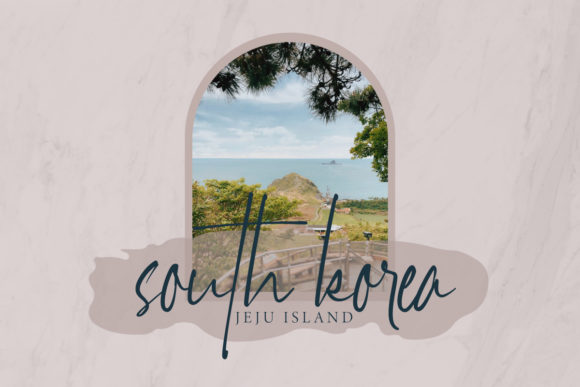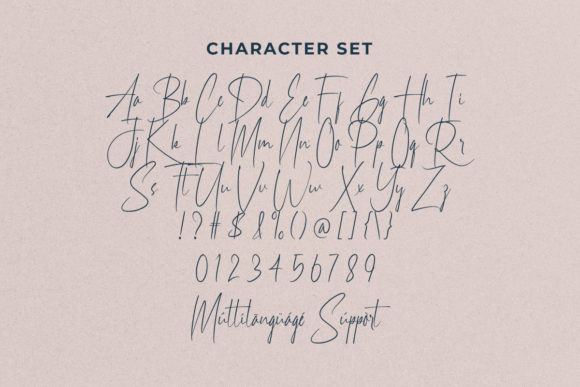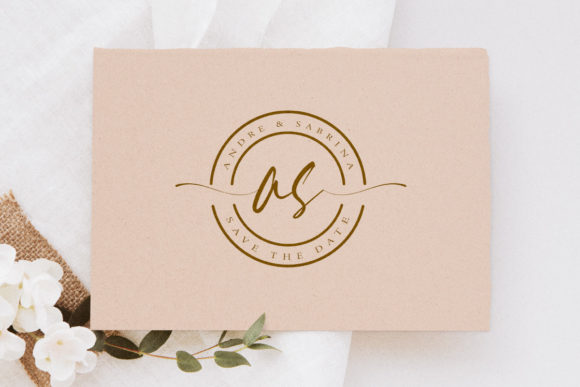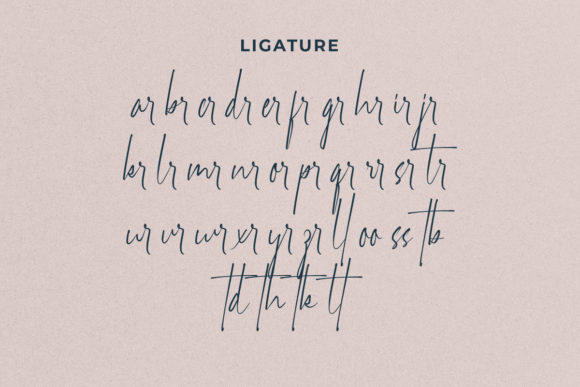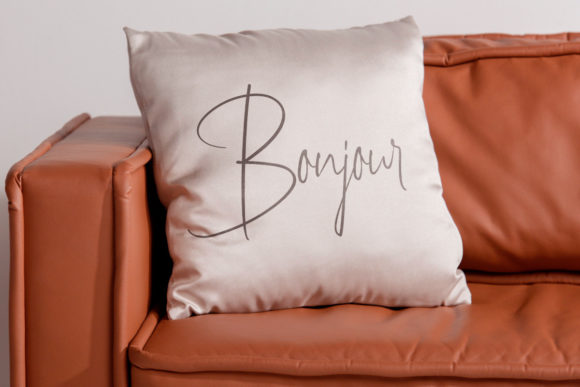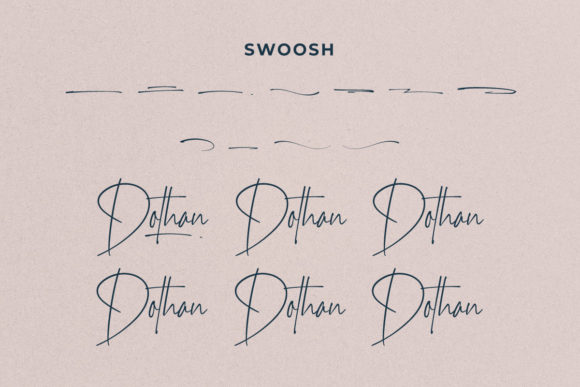
Dothan Font: A Sweet Script Font for Your Creative Projects
Are you a designer or crafter looking for a unique and elegant font to add a touch of personality to your projects? Look no further than the Dothan font, a sweet script font with a relaxed theme that’s perfect for a variety of creative endeavors. In this article, we’ll take a closer look at the Dothan font, its features, and how you can use it to elevate your designs.
What is Dothan Font?
Dothan is a beautiful script font that boasts a relaxed and casual vibe, making it ideal for projects that require a touch of elegance and sophistication. The font features thin characters that give it a light and airy feel, perfect for creating a sense of whimsy and playfulness in your designs.
One of the standout features of the Dothan font is its PUA (Private Use Area) encoding. This means that you can access all of the glyphs and swashes with ease, giving you a wide range of creative possibilities. With PUA encoding, you can easily insert special characters, ligatures, and other unique elements into your text, allowing you to customize your designs and make them truly one-of-a-kind.
Features of Dothan Font
- Relaxed theme: Dothan font has a calm and serene feel, making it perfect for projects that require a soothing and peaceful atmosphere.
- Thin characters: The font’s thin characters give it a light and airy feel, adding a touch of elegance and sophistication to your designs.
- PUA encoded: With PUA encoding, you can access all of the glyphs and swashes with ease, giving you a wide range of creative possibilities.
- Sweet script font: Dothan font is a beautiful script font that’s perfect for creating eye-catching headlines, titles, and other text elements.
Uses of Dothan Font
Dothan font is a versatile font that can be used for a wide range of creative projects, including:
- Branding and logos: The Dothan font is perfect for creating elegant and sophisticated logos and branding materials.
- Stationery and invitations: The font’s relaxed theme and sweet script style make it ideal for creating beautiful stationery and invitations.
- Web design: Dothan font can be used to create stunning web designs, including headings, titles, and other text elements.
- Crafting and DIY projects: The font is also perfect for crafters and DIY enthusiasts who want to add a personal touch to their projects.
Tips for Using Dothan Font
Here are some tips for using the Dothan font effectively in your designs:
- Use it sparingly: Because of its elegant and sophisticated feel, it’s best to use the Dothan font sparingly to avoid overwhelming your designs.
- Experiment with different sizes: Try using the font in different sizes to create visual interest and add emphasis to your text.
- Pair it with other fonts: Dothan font pairs well with other fonts, so don’t be afraid to experiment with different font combinations to create a unique look.
In conclusion, the Dothan font is a beautiful and versatile script font that’s perfect for designers and crafters looking to add a touch of elegance and sophistication to their projects. With its relaxed theme, thin characters, and PUA encoding, this font offers a wide range of creative possibilities. Whether you’re creating branding materials, stationery, web designs, or crafting and DIY projects, the Dothan font is sure to impress.